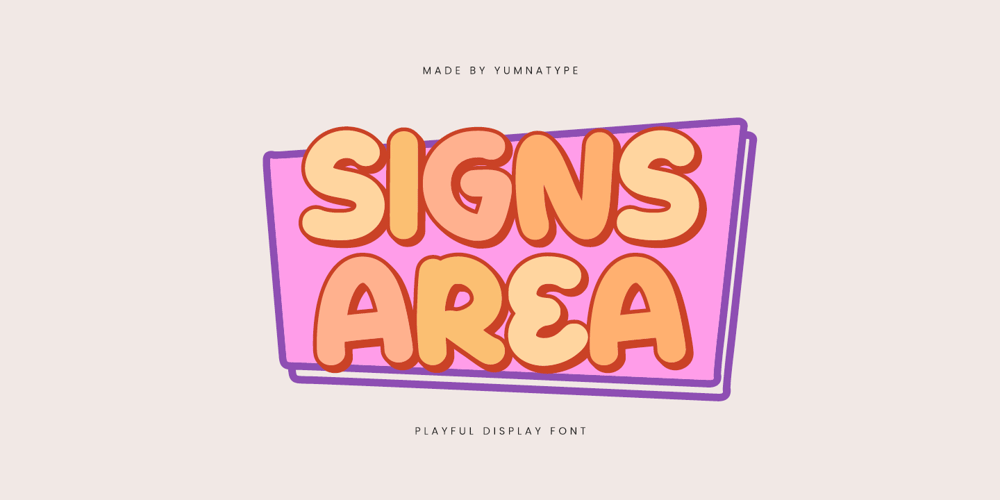
Signs Area Font Family was designed by Donis Miftahudin and published by Yumna Type. Signs Area contains 2 styles and family package options. Signs Area is a bold display font that commands attention with its strong presence and distinctive style. Each letter is meticulously designed to convey strength and confidence, ensuring that your message is seen and understood with clarity and impact. On the other hand, the low contrast in Signs Area giving the font a sense of uniformity and consistency.Despite its boldness, Signs Area maintains a sense of approachability and friendliness, thanks to its rounded shapes and smooth curves. As an extra this font gives shapes illustrations. In addition, enjoy the features here.Features: Multilingual Supports PUA Encoded Numerals and Punctuations Signs Area fits in headlines, logos, posters, flyers, branding materials, print media, editorial layouts, and many more designs. Find out more ways to use this font by taking a look at the font preview.Thanks for purchasing our fonts. Hopefully, you have a great time using our font. Feel free to contact us anytime for further information or when you have trouble with the font. Thanks a lot and happy designing.